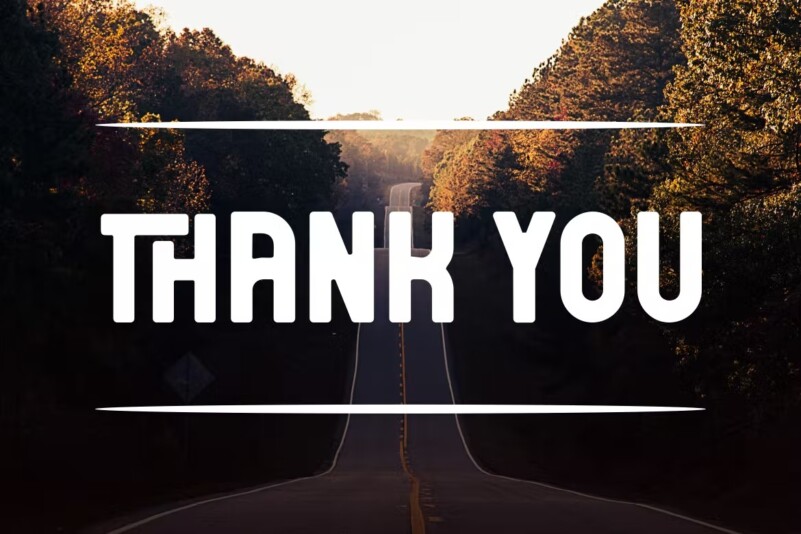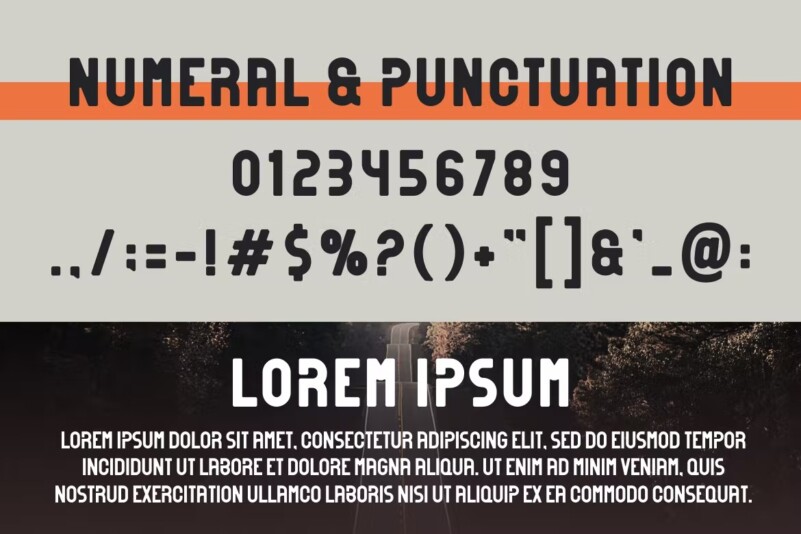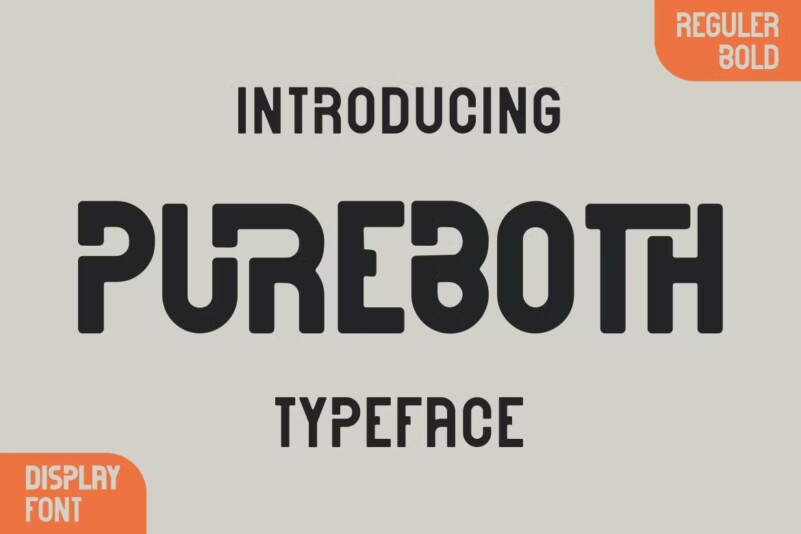
PUREBOTH Font
Introducing our new product PUREBOTH Font – Modern Font PUREBOTH Font** – Modern Font is a bold and authentic display font. The font is suitable for any branding project such as logo, t-shirt print, products and many more. Exceptional in a wide range of contexts.